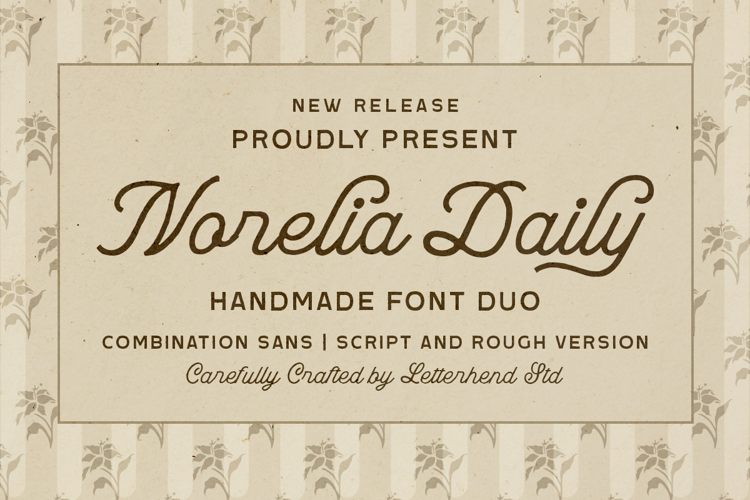
Norelia Daily Sans Font
4 font family styles
Script Style
Rough Script Style
Rough Sans Style
Sans Style
Norelia Daily feels like a warm note written in a favorite journal and tucked between the pages of a well-loved book. Combining a graceful monoline script with a clean companion sans, it brings a relaxed vintage charm that feels both familiar and timeless.